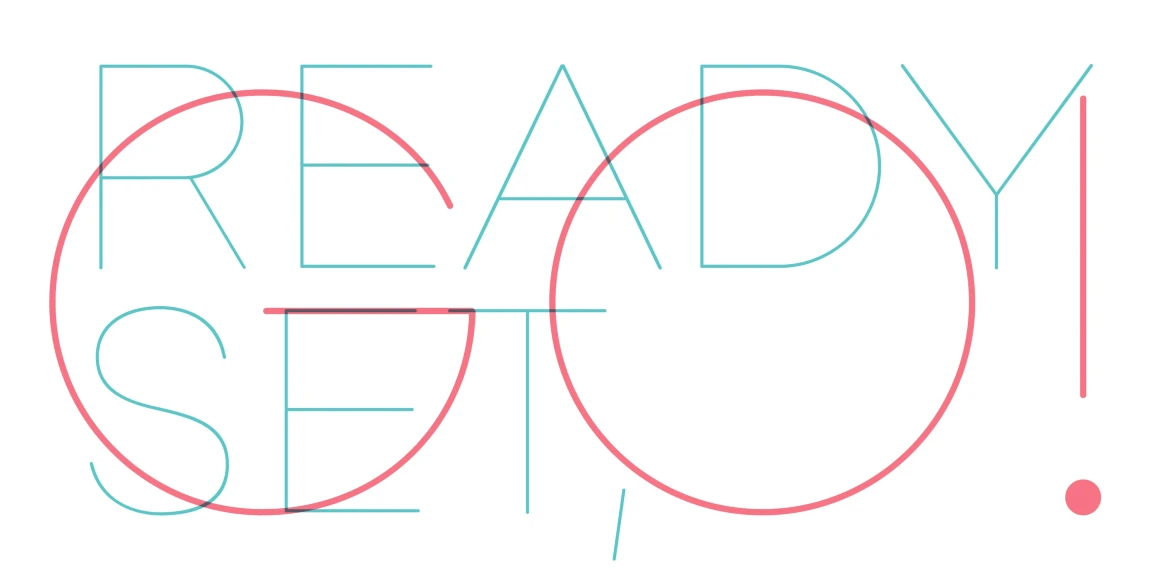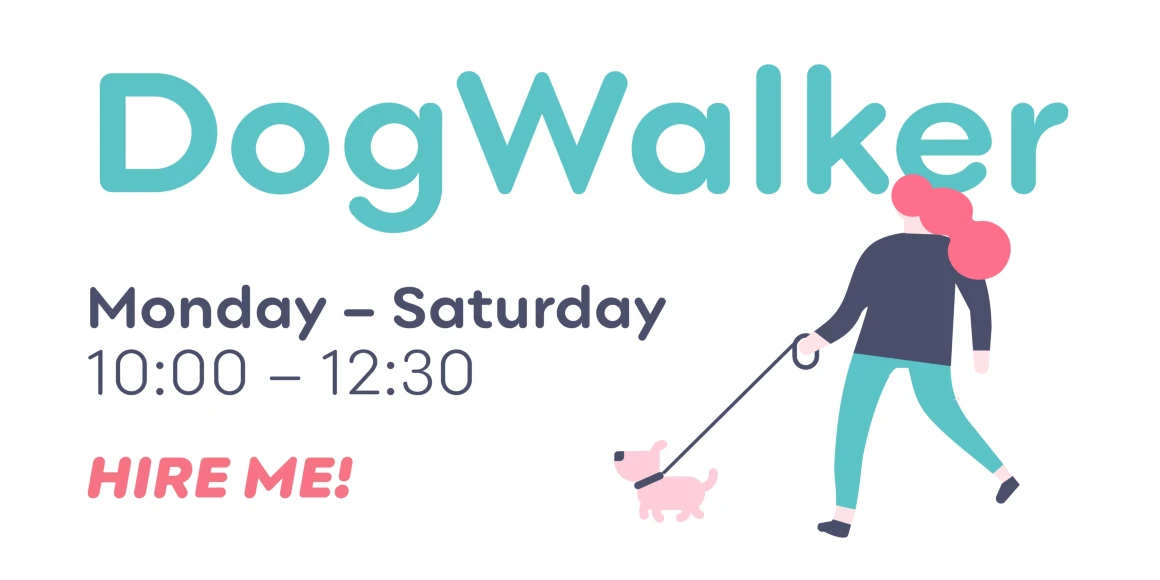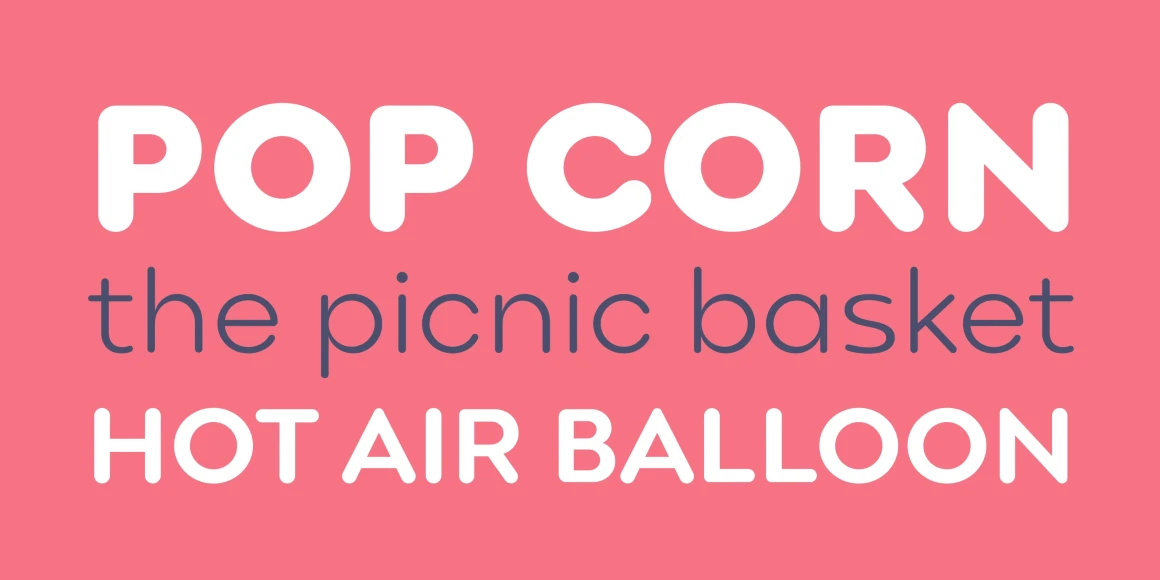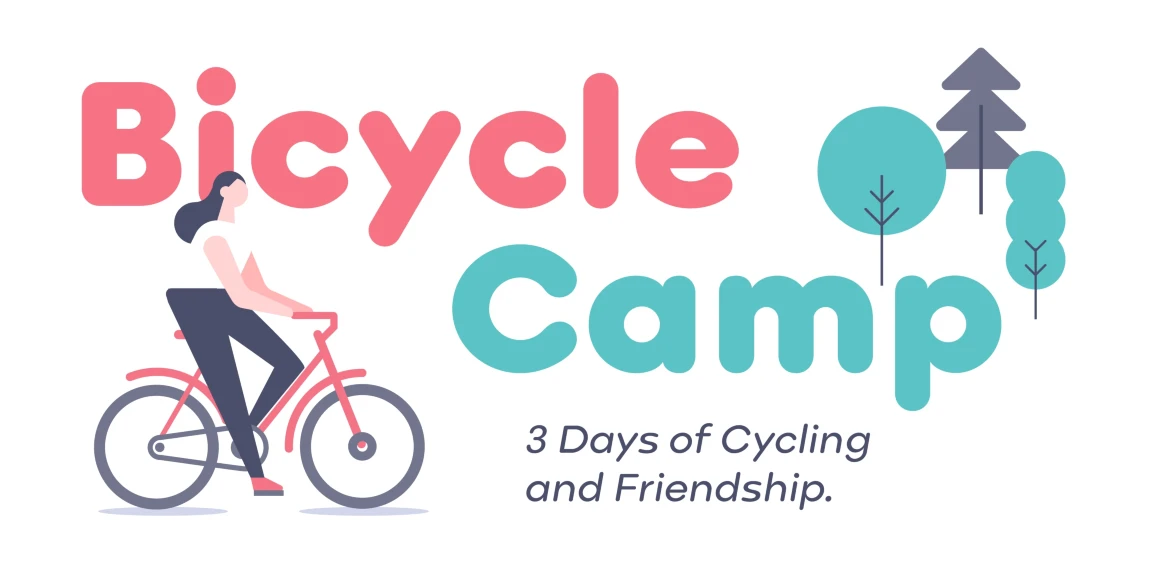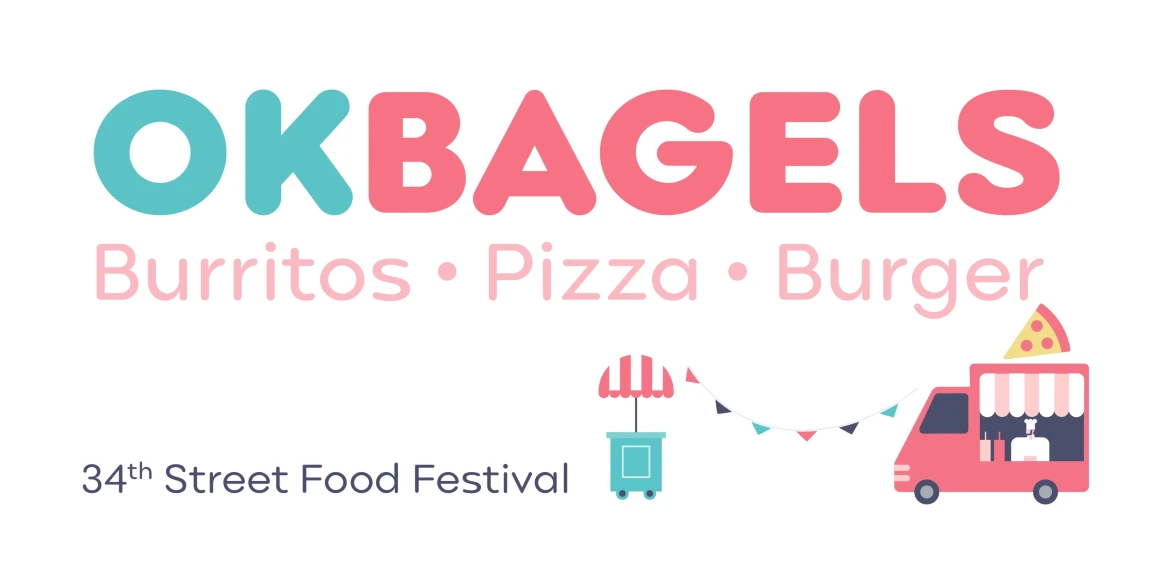
Point Soft
By Natanael Gama
Point Soft is more than the rounded edges version of Point, it is a reinterpretation of what a geometric soft font should look like. Clean, simple, and above all: huggable. Point Soft conveys that warm and soft feeling. With 20 styles it gives you a lot of versatility (From Hairline to Black), plus it comes with two FREE styles for you to play with before commit yourself to buy it. It has Extended Latin and Cyrillic support, old style, lining and tabular figures and much more. It has a wide range of use possibilities. Since it is a very readable font in small font sizes and the details really pop out in display sizes. Be it on small or large font sizes, Point will make its point.